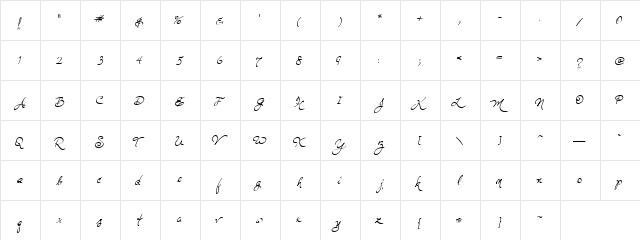
LD Warm Heart Regular
Design Context for LD Warm Heart Typeface
LD Warm Heart is a composed and adaptable typeface that performs quietly and consistently across a wide range of design contexts.